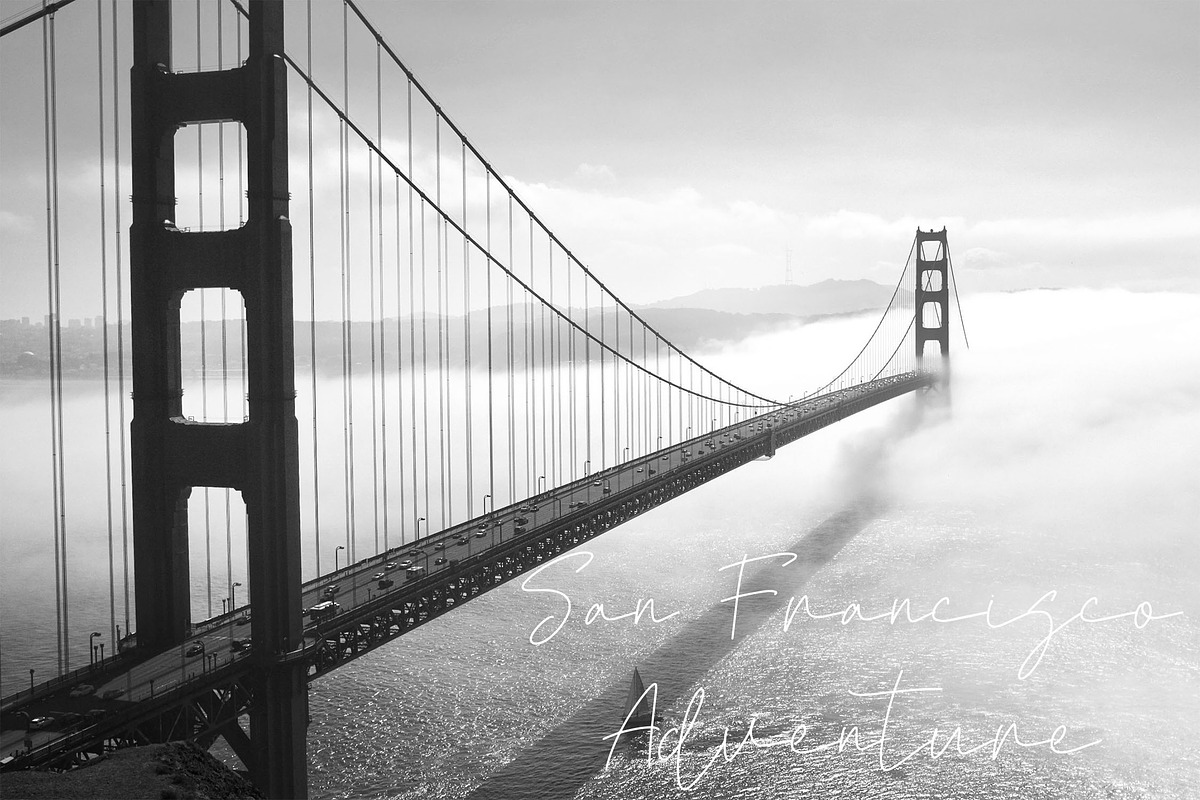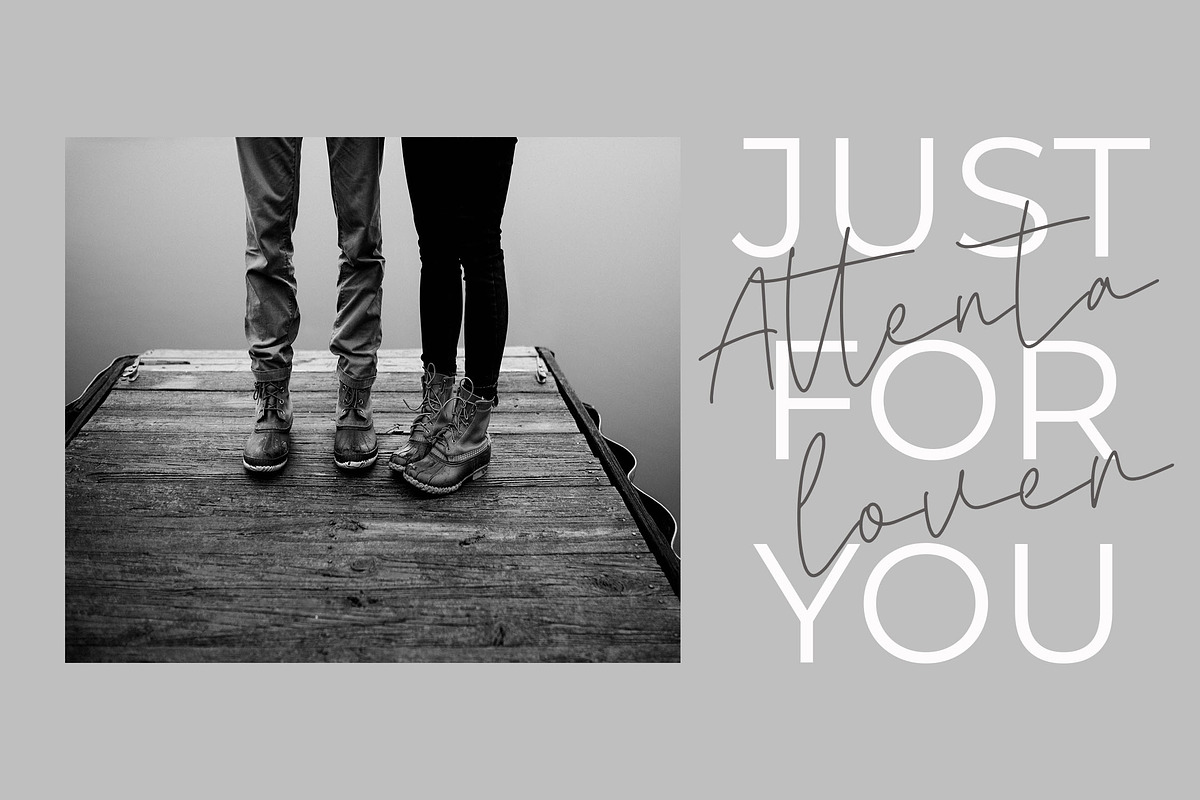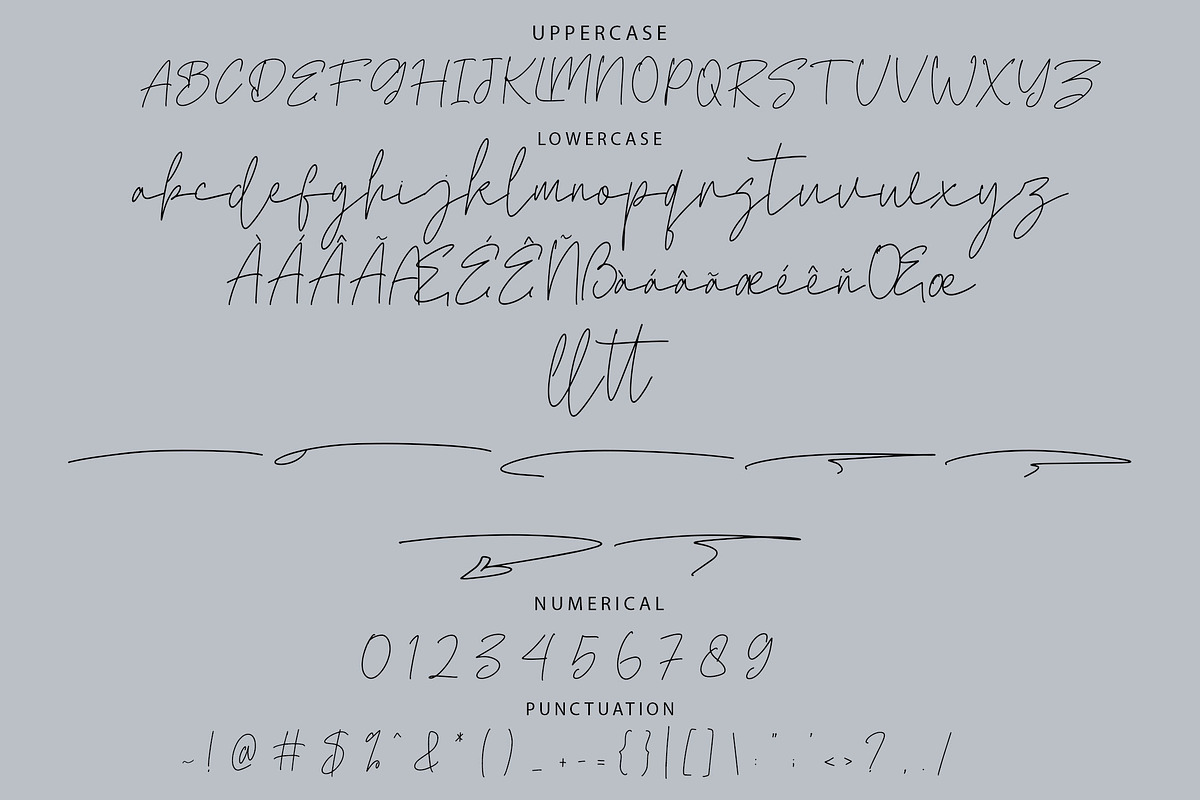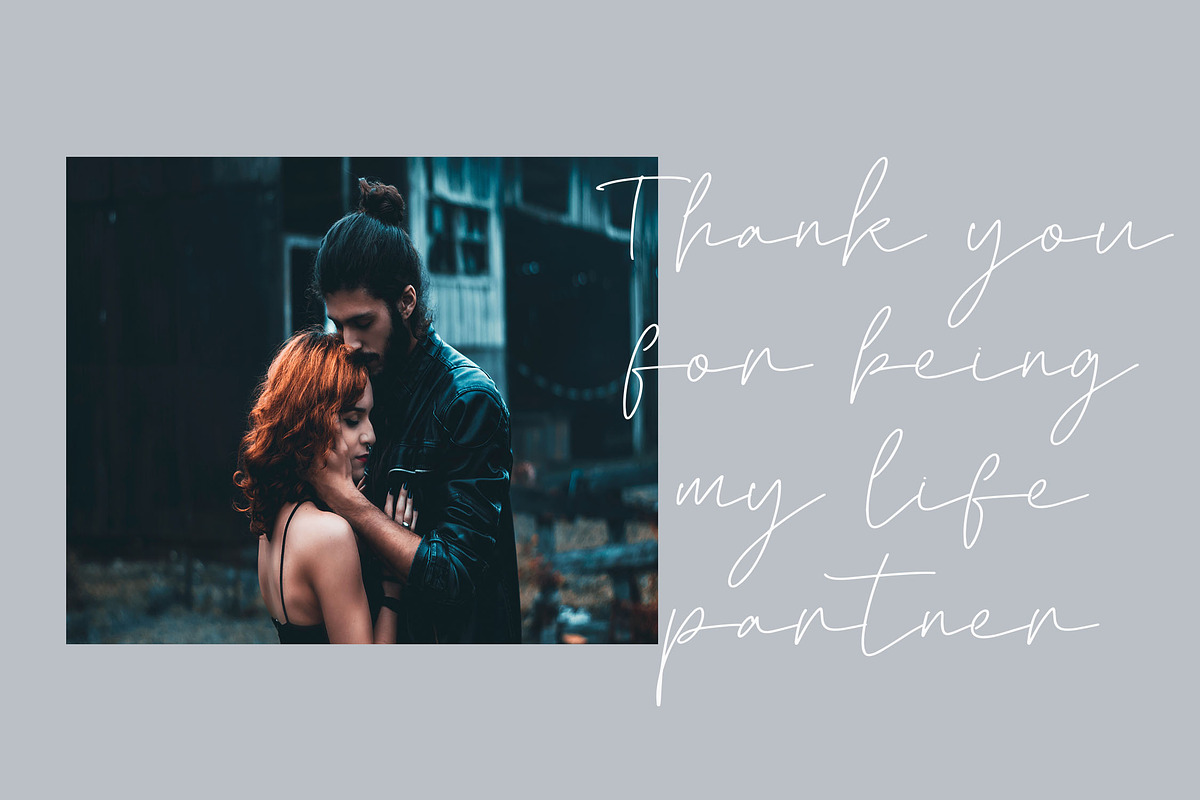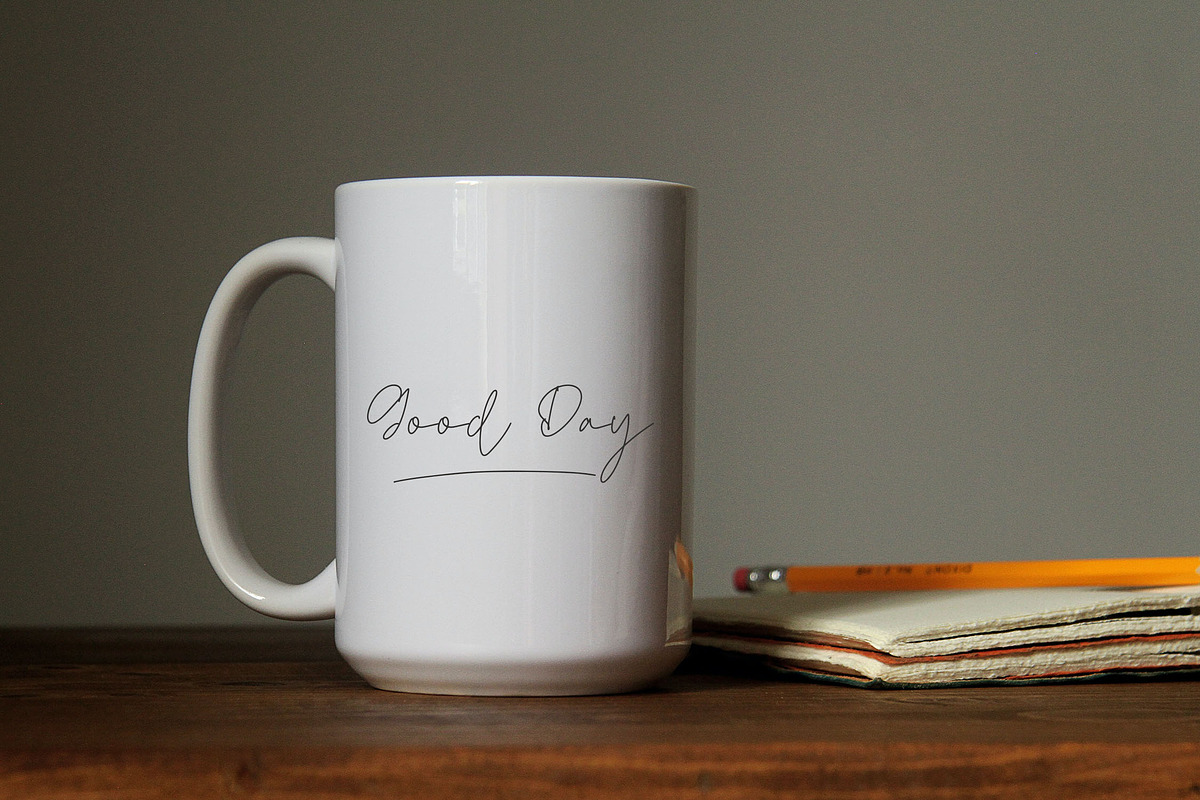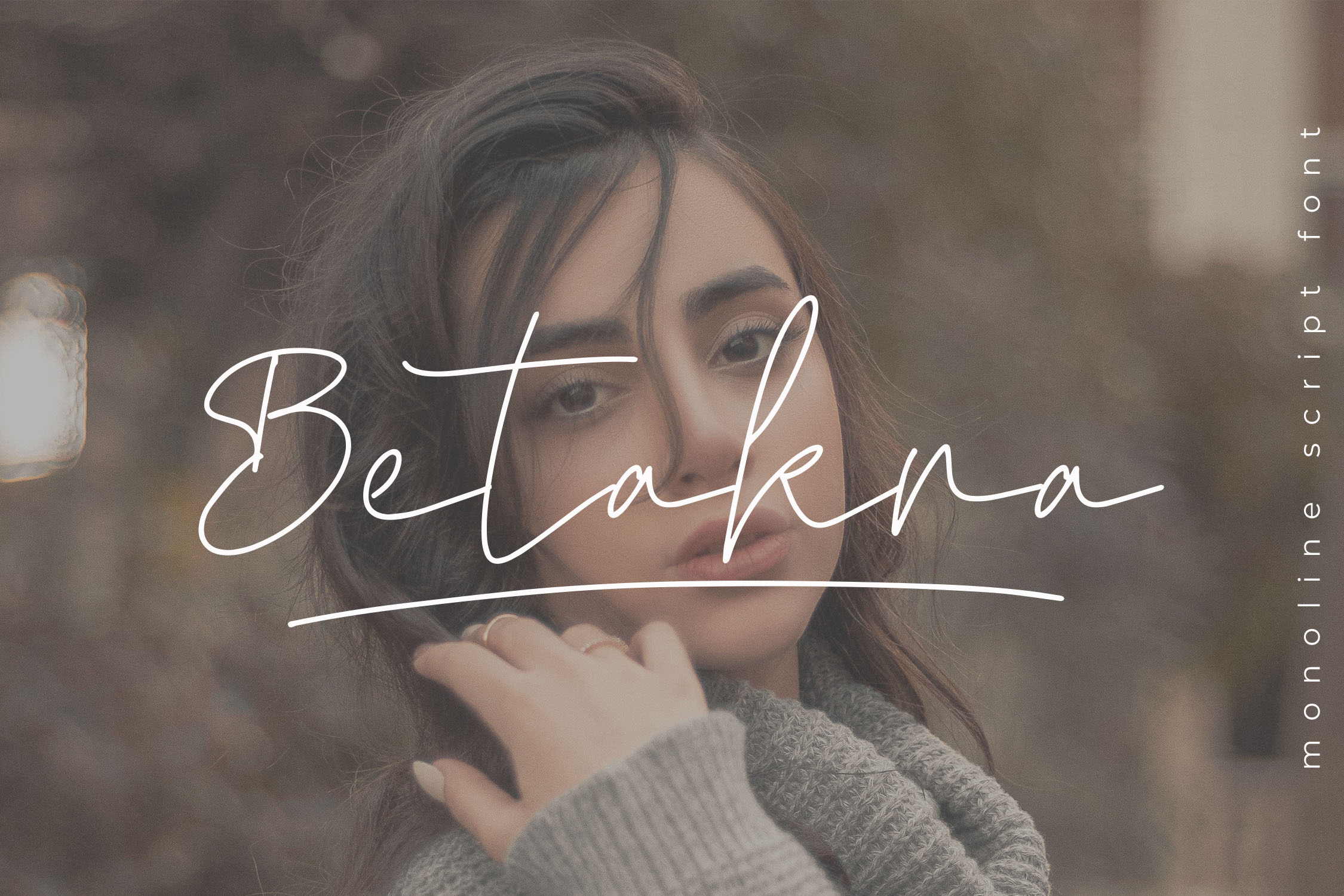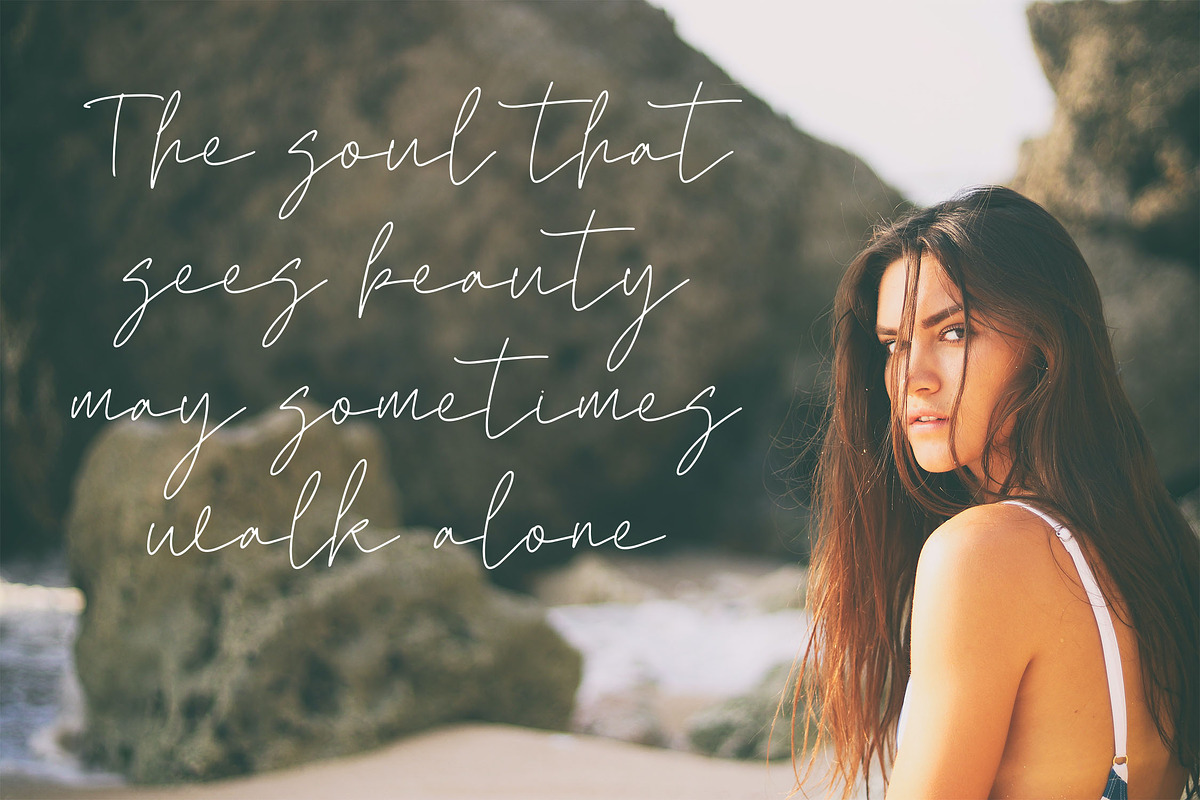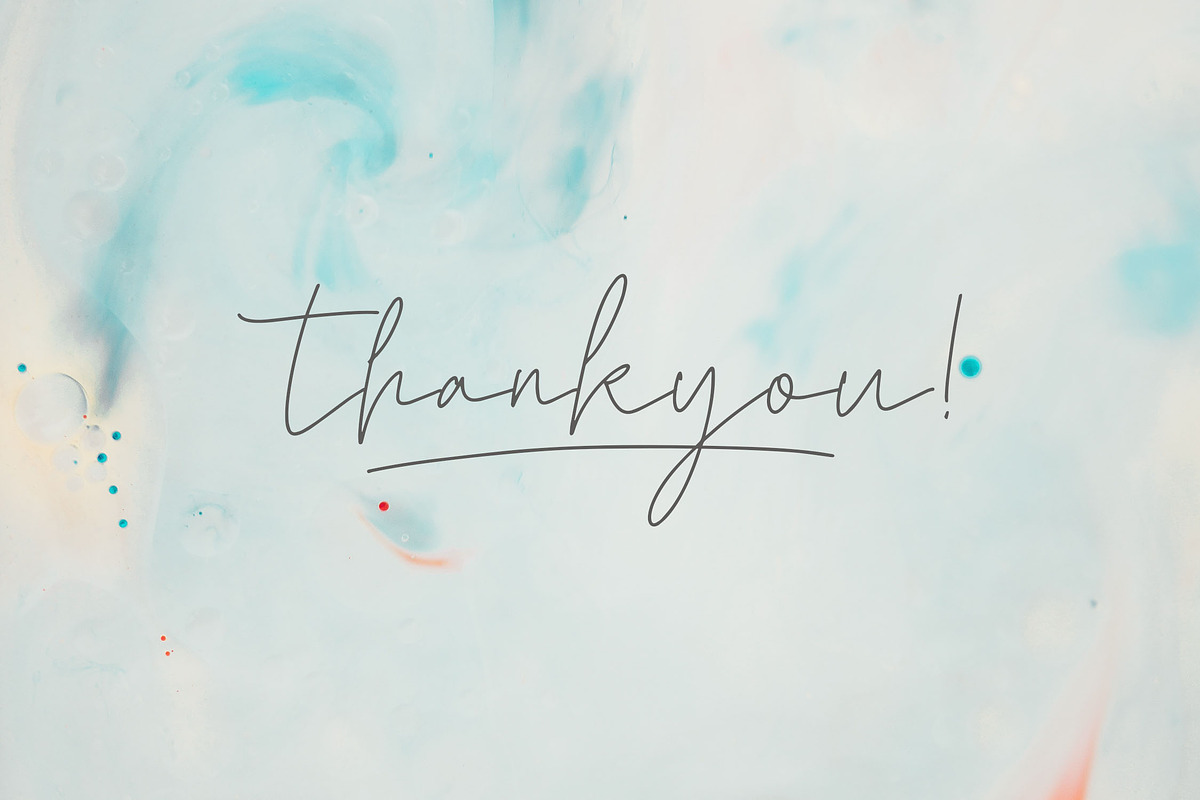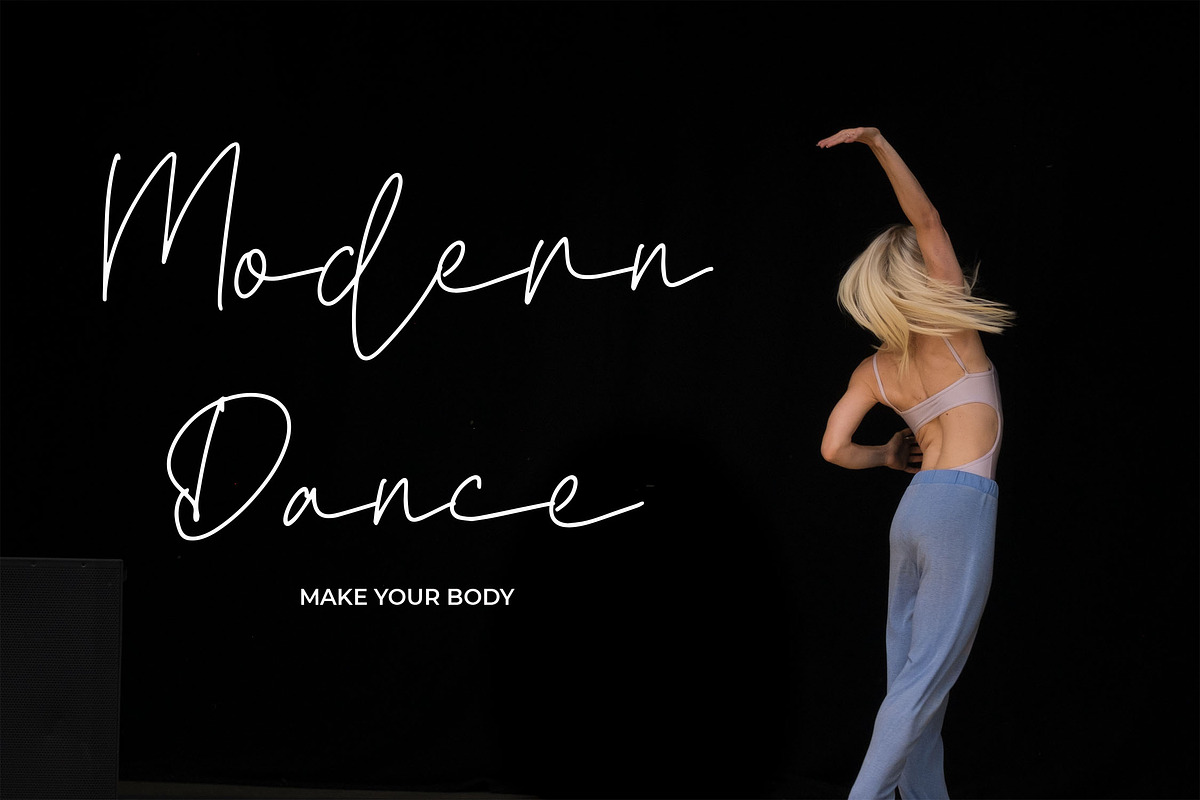
Betakra Monoline Script Font
Introducing Betakra, an elegant script font with a sleek monoline design. Featuring beautifully crafted characters with unique shapes, Betakra adds sophistication and charm to any project. Ideal for enhancing product visuals and creative designs, this font will bring a polished and attractive look to your work.
- Smooth Ligatures for flawless letter connections
- Stylistic Alternates for added design flexibility
- Elegant Swashes to enhance your text